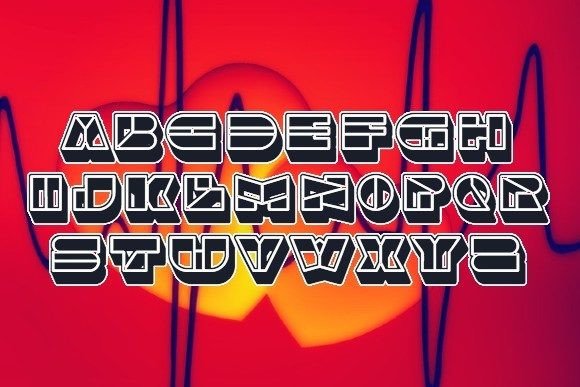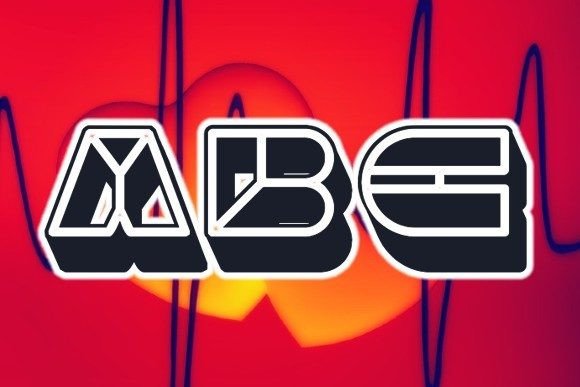
Introduction to Mental Font Font
Fonts play a crucial role in design, and the Mental Font font is a typeface that brings both character and versatility to any project. Whether you’re working on a branding project, a website, or a print design, the Mental Font font offers a unique style that can elevate your work.
Mental is an awesome 3D decorative typeface that will look stunning on any of your designs.
Use this font on posters, flyers, and banners .
Key Features of Mental Font Font
Why Choose Mental Font Font?
The Mental Font font is more than just a typeface – it’s a design tool that helps you communicate your message with style and clarity. Its unique character set and versatile design make it suitable for a wide range of applications, from elegant invitations to bold headlines.
With its carefully crafted letterforms and balanced proportions, the Mental Font font ensures readability and visual appeal across all mediums.
What makes Mental Font font special?
The Mental Font font stands out with its unique design, exceptional readability, and versatility across various design applications.